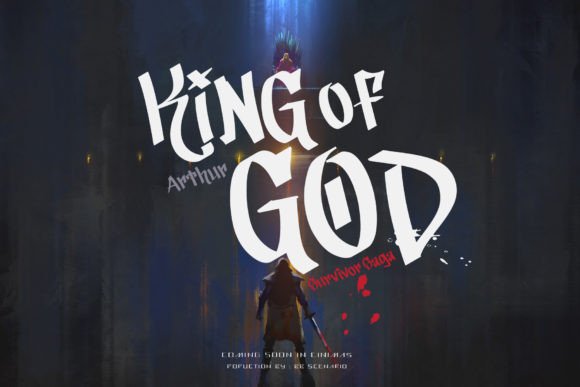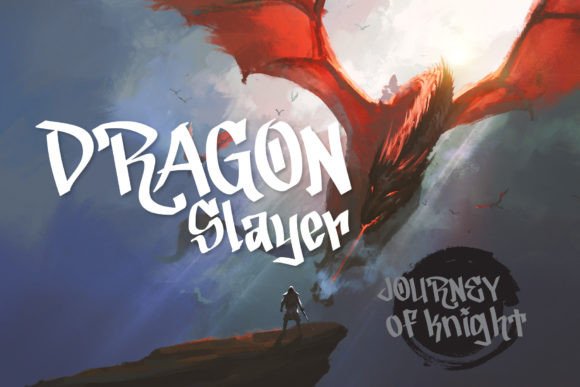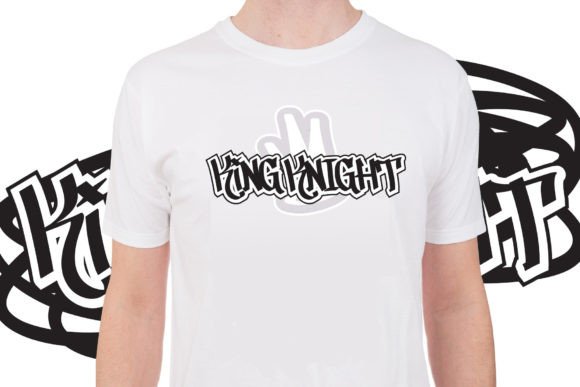
Introduction to King Knight Font
King Knight is an assertive graffiti-styled blackletter font, that features a street art vibe.
This font is suitable for designs like logos, T-shirts, book covers, posters, sportswear, skateboard, and more .